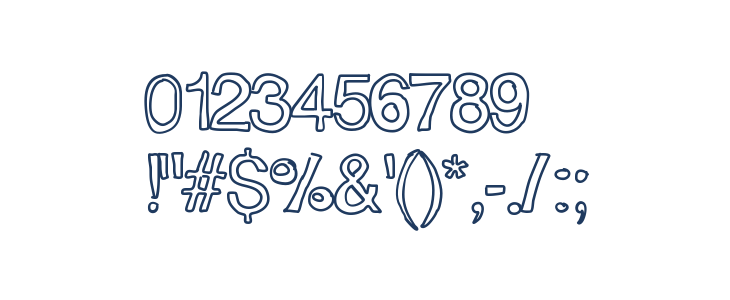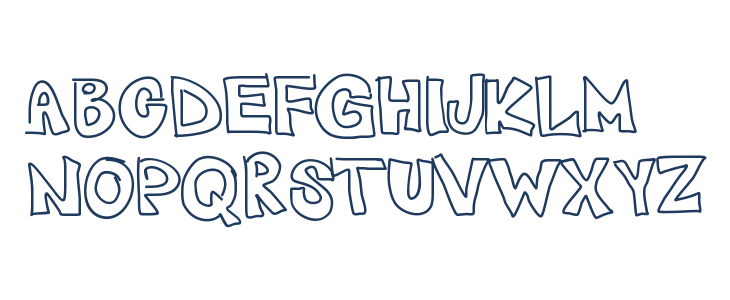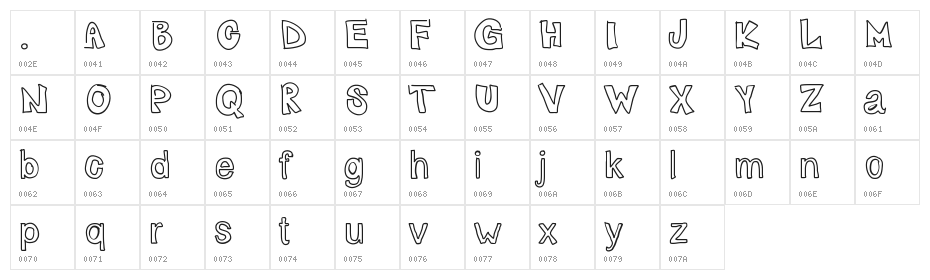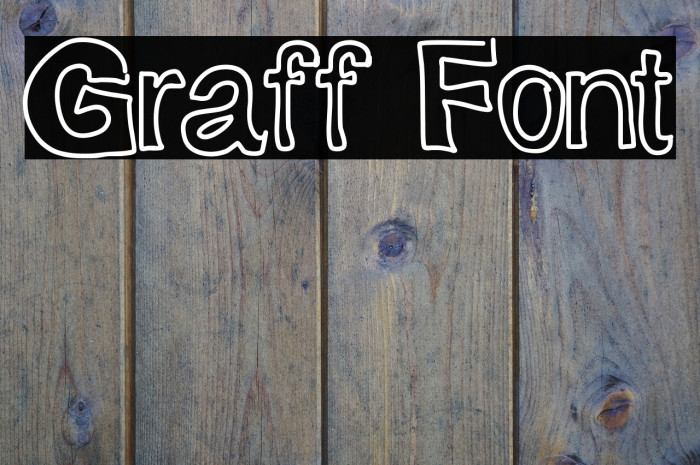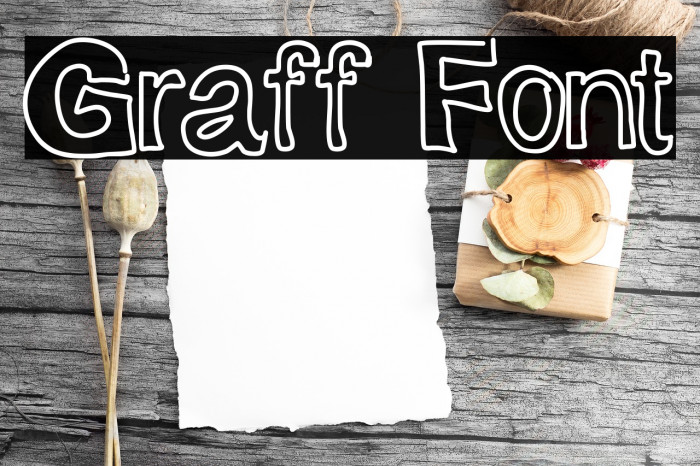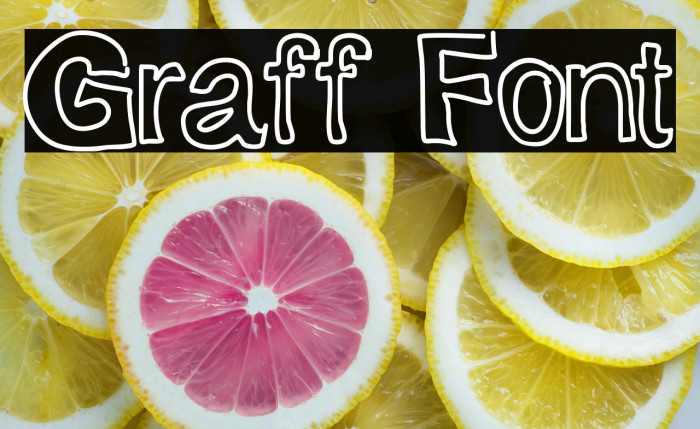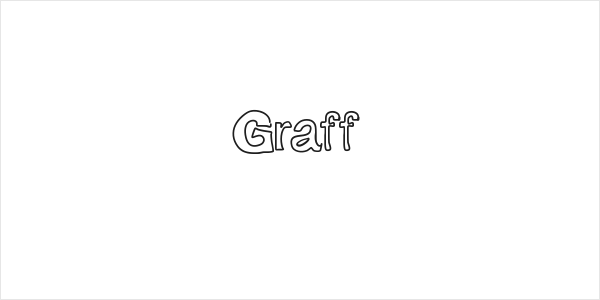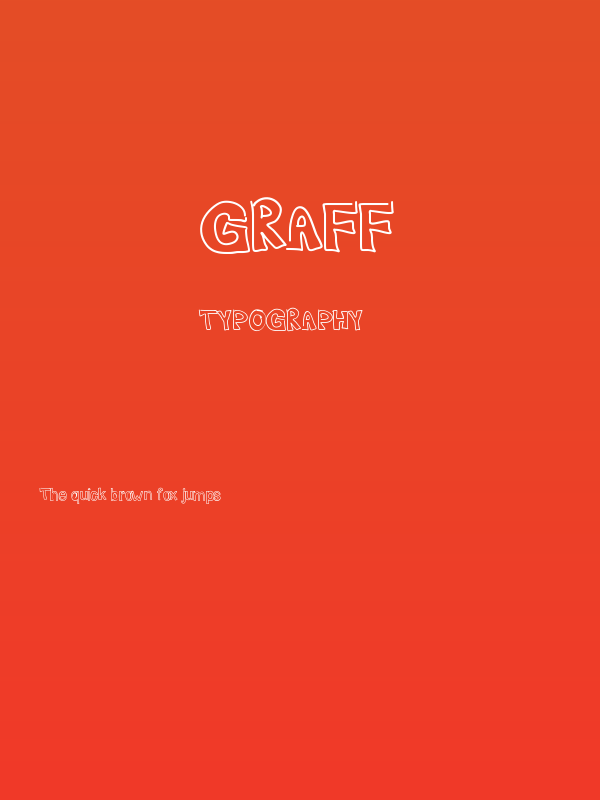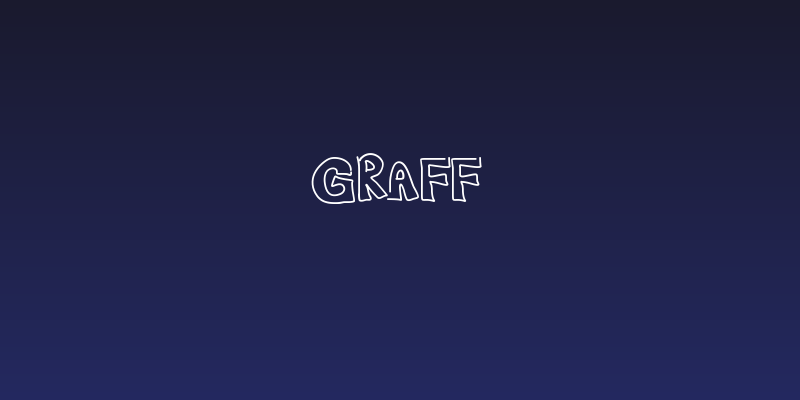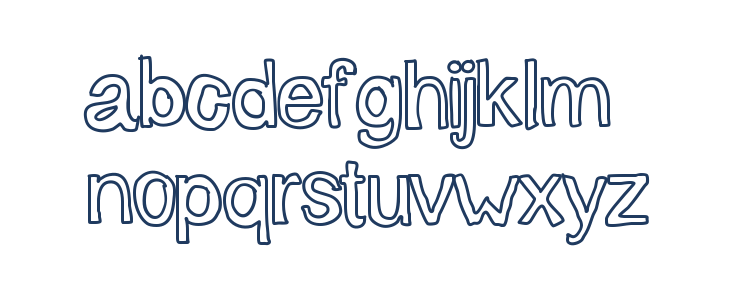
Graff Font
Graff Description
This font features a playful and bold outline style, reminiscent of graffiti art. The characters are hand-drawn with a casual, informal appearance, giving them a unique and artistic flair. The uppercase letters are slightly larger and more pronounced, while the lowercase letters maintain a consistent style with rounded edges and a whimsical touch. Numbers and special characters follow the same design, ensuring a cohesive look across all elements. The font's overall aesthetic is fun and energetic, making it suitable for creative and youthful projects.
| Overall Style | Modern, Artistic |